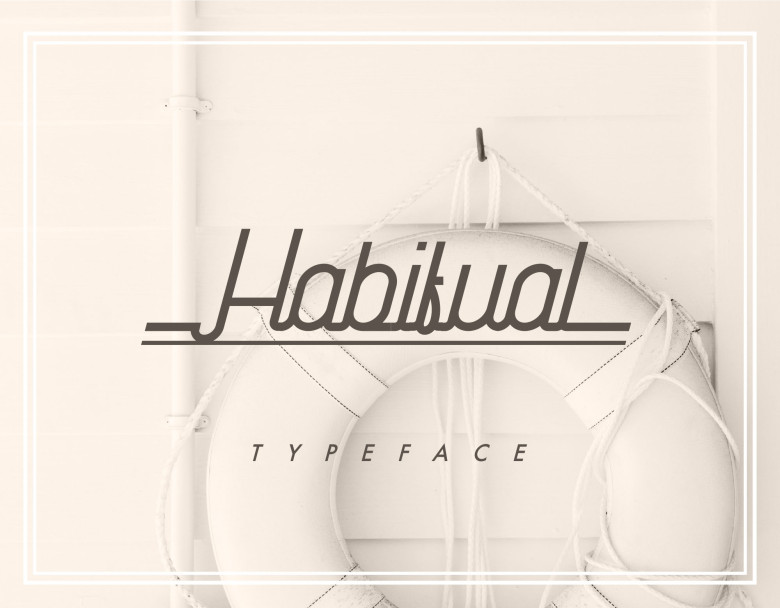
Habitual Typeface
Using a unique font, will make a perfect difference to your design, and I always want to bring the best fonts to you. Introducing Habitual Typeface. Habitual combines both personal and digital style typefaces in one single font. It is italic with a 15 degree inclination. The letters connect in a smooth and nice way. It is a multi-purpose font that can be used for designing posters, covers, logos and in various branding projects.